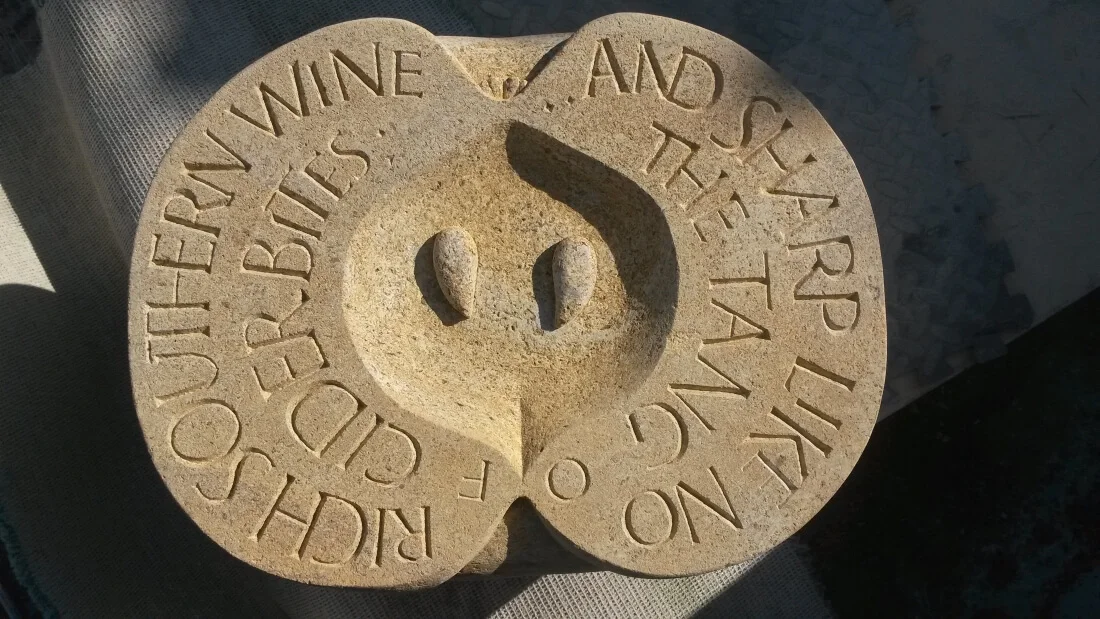
An 'Elixir of Letters' at Chelsea Physic Garden, 2018
We collaborated with Chelsea Physic Garden to bring a very special collection of lettering to London. Chelsea Physic Garden is the oldest botanic garden in London and houses around 5,000 different medicinal and herbal plants. Inspired by the Garden's theme for 2018 of 'drink', we presented a heady brew of inscriptions, sculptures and garden ornaments. You can hear more from the artists about their pieces in the video we commissioned to accompany the exhibition.
Chelsea Physic Garden hosts "An Elixir of Letters," a unique collaboration between the Chelsea Physic Garden and the Lettering Arts Trust. This wonderful exhibition celebrates the theme of drink, and features works in stone, slate, and metal inspired by plants that are the ingredients in teas, tisanes, wines, cordials, beers, and herbal brews.
Throughout the Garden is a trail of objects featuring lettering designed by leading letter carvers, including our former apprentices. Artists have taken inspiration from the plants found in the garden which form the ingredients for delicious bubbles, brews and beverages.